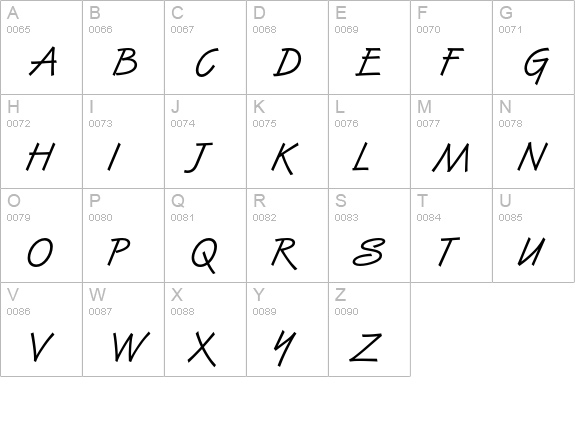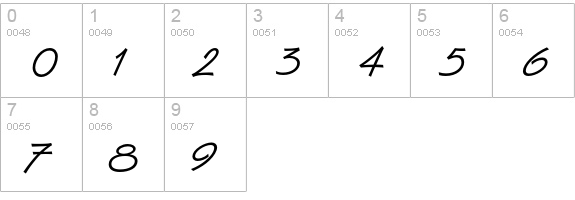
Van Dijk Std is a beautiful and versatile font that effortlessly combines elegance with legibility. Designed by a team of skilled typographers, this font is a perfect choice for a wide range of design projects, from branding and advertising to editorial and web design. With its clean lines and balanced proportions, Van Dijk Std exudes a sense of sophistication and modernity. One of the most appealing aspects of Van Dijk Std is that it is available for free. Yes, you read that right! This amazing font can be freely downloaded from FontsMarket.com, a trusted source for high-quality fonts. Whether you're a professional designer or a hobbyist, you can now access this unique typeface without any cost. It's a fantastic opportunity to enhance your projects with a top-notch font without breaking the bank. Van Dijk Std offers an extensive character set, including uppercase and lowercase letters, numerals, punctuation marks, and a variety of special characters. This versatility allows you to create visually captivating designs that truly stand out. The font's smooth curves and impeccable spacing ensure optimal readability, making it a great choice for both print and digital applications. Whether you're working on a logo design, a magazine layout, or a website, Van Dijk Std will elevate your project to new heights. Its timeless appeal and contemporary aesthetic make it suitable for a wide range of industries, from fashion and beauty to technology and finance. With this font, you can effortlessly communicate your message with style and professionalism. So why wait? Download Van Dijk Std for free today at FontsMarket.com and unlock the potential of this remarkable font. Whether you're a seasoned designer or just starting out, this font is sure to become a valuable addition to your typographic arsenal. Don't miss out on this incredible opportunity to elevate your design work with a font that is not only stunning but also freely available.